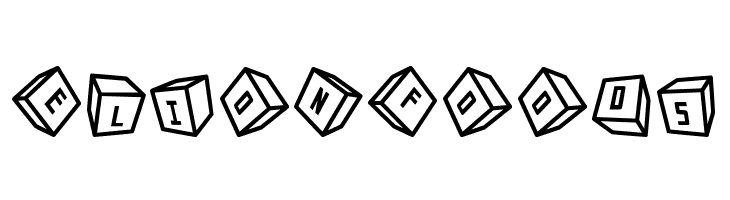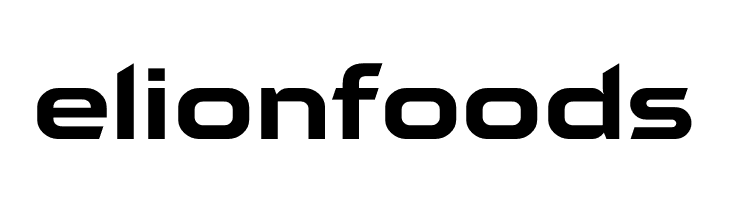
( Runsell Studio - creativemarket.com/RunsellStudio )
A bold, modern script font with connected, fluid characters.
( Sebastian - greekhouseoffonts.com )
A bold, double-outline font inspired by traditional Greek lettering, ideal for decorative and impactful designs.
( Southype - Rodrigo Gonzalez - www.southype.com )
A bold, 3D cube font with a playful and modern geometric style.
( Steve Gardner - www.explogos.com )
A bold, modern font with geometric influences and sharp, angular characters.
( Steve Gardner - www.explogos.com )
A clean, structured serif font with medium contrast and excellent readability.
( Tioem - Thomas Ledin - tomledin.com )
A decorative nautical-themed font with anchor motifs and bold, symmetrical letters.
( Typodermic Fonts - Ray Larabie - www.typodermicfonts.com/ )
A bold, geometric font with a modern and edgy style.
( Vladimir Nikolic - www.coroflot.com/vladimirnikolic )
A decorative font with bold characters enclosed in ornate, gear-like frames.
( aurilia - aurilia nlk )
A bold, Blackletter-inspired font with sharp edges and intricate detailing.